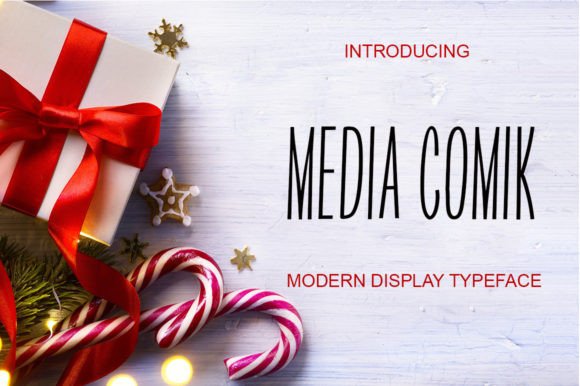
Step into a world of timeless beauty with the Media Comik Font Family – your go-to source for enchanting wedding invitations. This collection of captivating sans-serif fonts will transform your special day into an unforgettable celebration.
Crafted with precision and artistry, the Media Comik Font Family exudes elegance and sophistication. Each meticulously designed letter is a work of art, adding a touch of grace to every word. Whether you're creating invitations, save-the-dates, or personal notes, these fonts will leave a lasting impression on your guests.
Indulge in the playful yet refined curves of Media Comik, perfect for conveying the joy and excitement of your wedding day. Let the crisp lines and chic serifs of Media Comik Bold elevate your invitations to new heights, creating an unforgettable first impression. For a touch of whimsical charm, Media Comik Italic offers a graceful flow that will make your words dance on the page.
But don't just take our word for it. Join the chorus of satisfied couples who have used Media Comik Font Family to create cherished memories. Their testimonials speak volumes about the transformative power of these fonts – from heartfelt expressions of love to effusive compliments on the exquisite design.